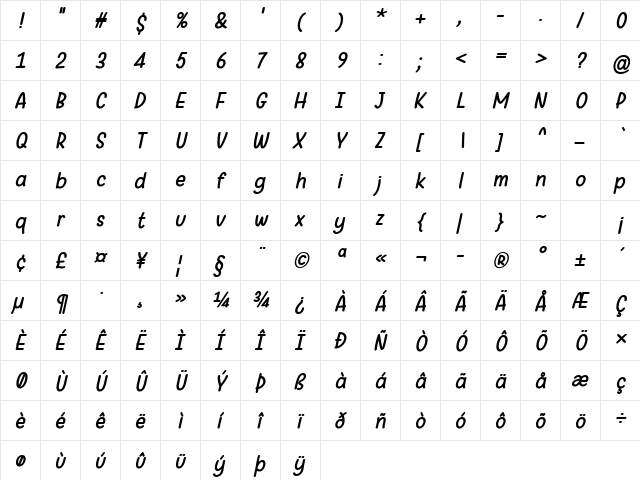
Warung Kopi Italic
| Foundry | 7NTypes |
| Designer | Situjuh Nazara |
Design Context for Warung Kopi Typeface
Warung Kopi is a composed and adaptable typeface that performs quietly and consistently across a wide range of design contexts. The slanted form adds forward momentum and visual energy.
Pro Tip: Try Warung Kopi for annotation and caption copy alongside an upright companion — the contrast in angle creates a dynamic but ordered typographic system.